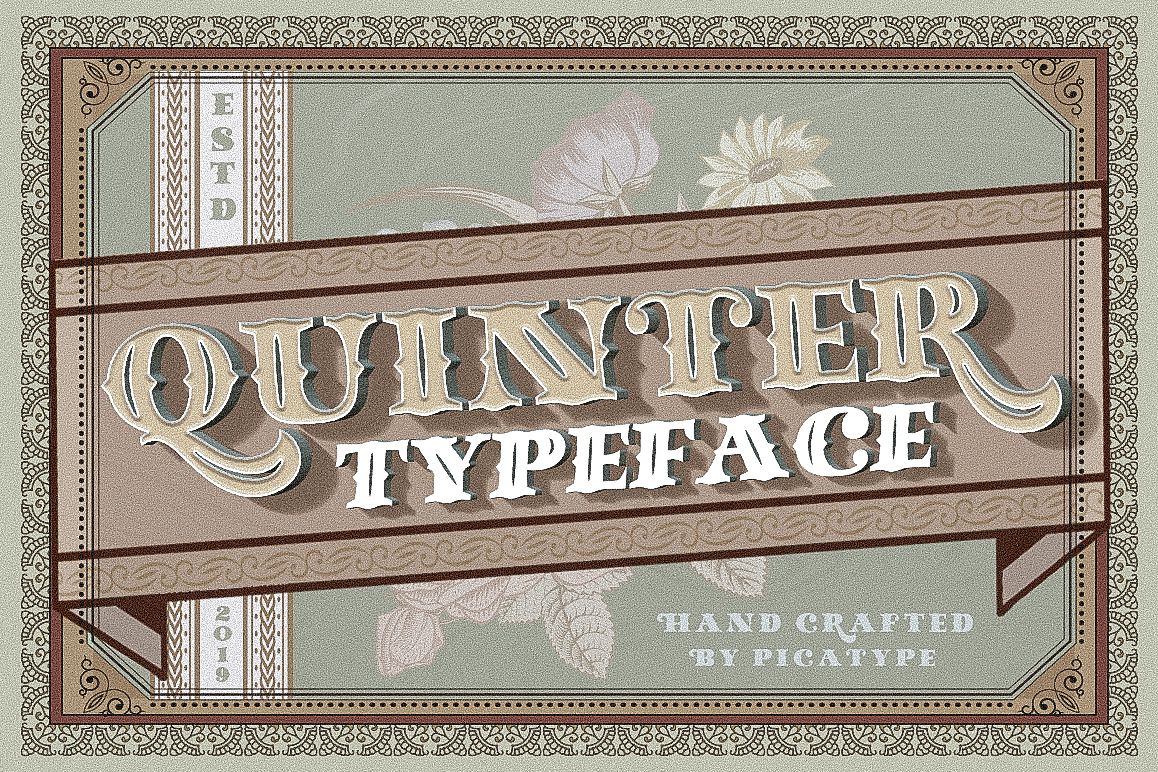
Quinter Typeface
Quinter One Italic
Quinter Two Italic
Quinter Two
Quinter One
Quinter Typeface is inspired by the writing on the vintage beer label from the good old days. but still has a strong modern appearance. come with 2 types of styles, Each combination has been carefully crafted to make your design look better. Ideal for product names, packages, labels, old-fashioned coffee shops, bars and everything with special characteristics in the past. This combination allows you to easily build beautiful vintage designs in a short amount of time.Files included: